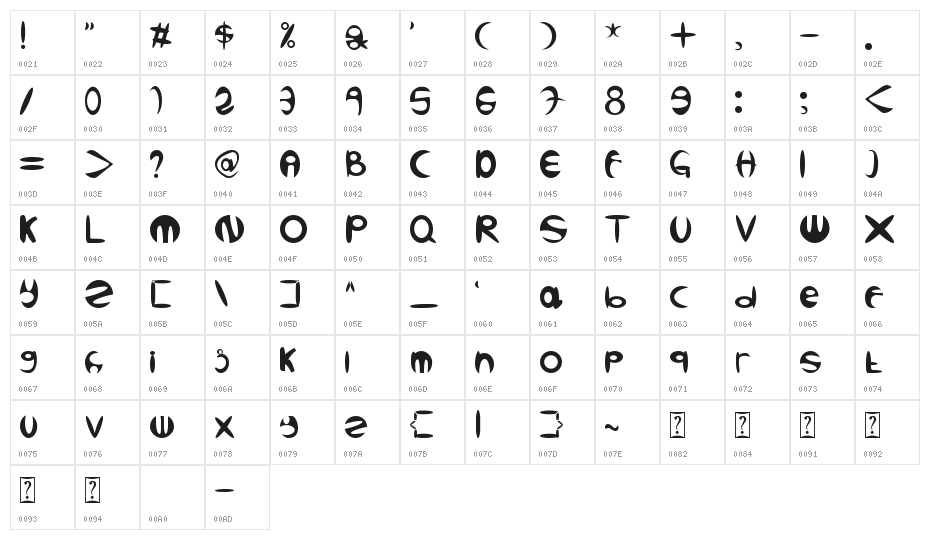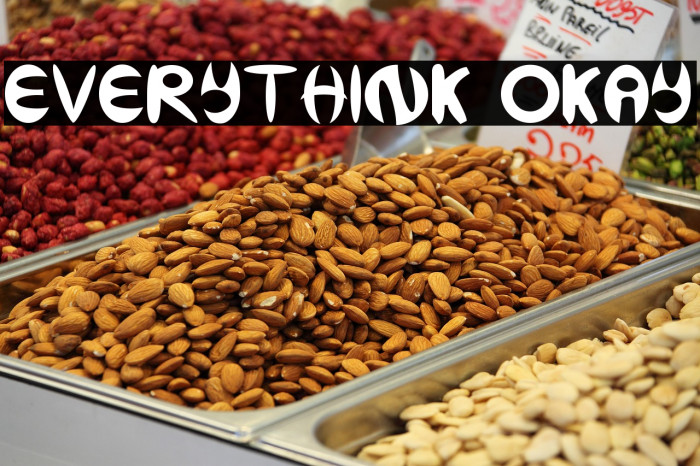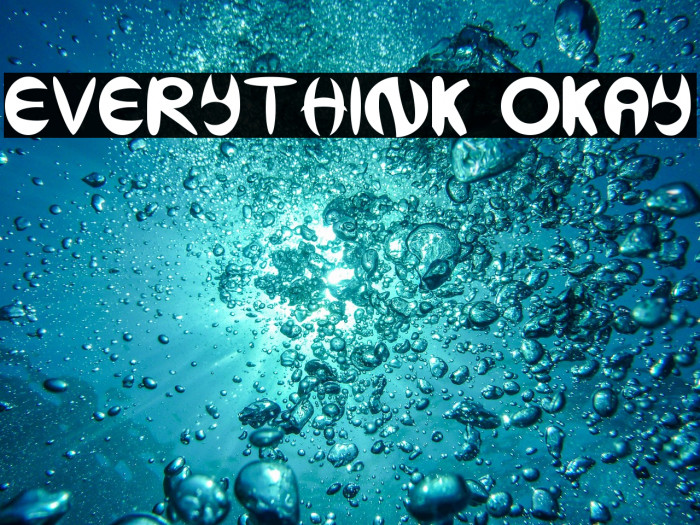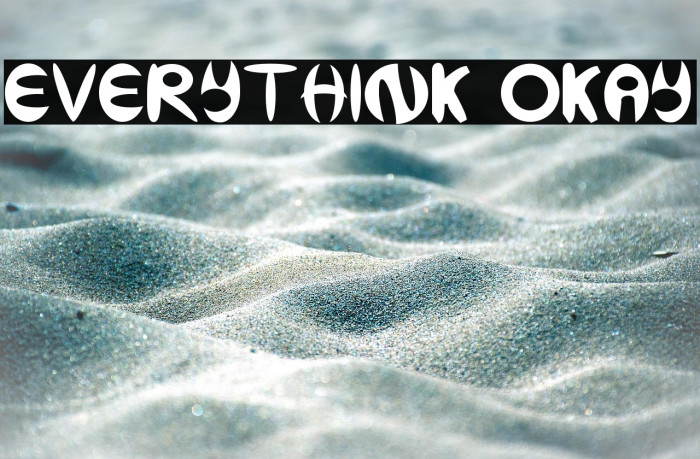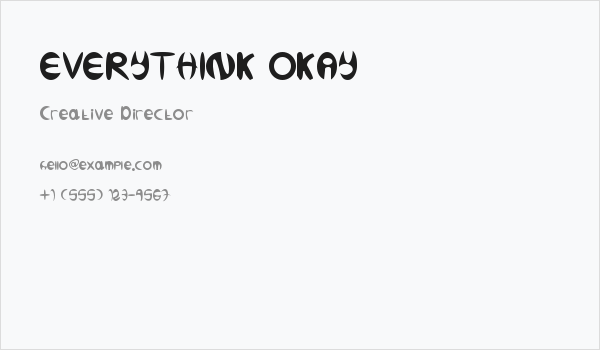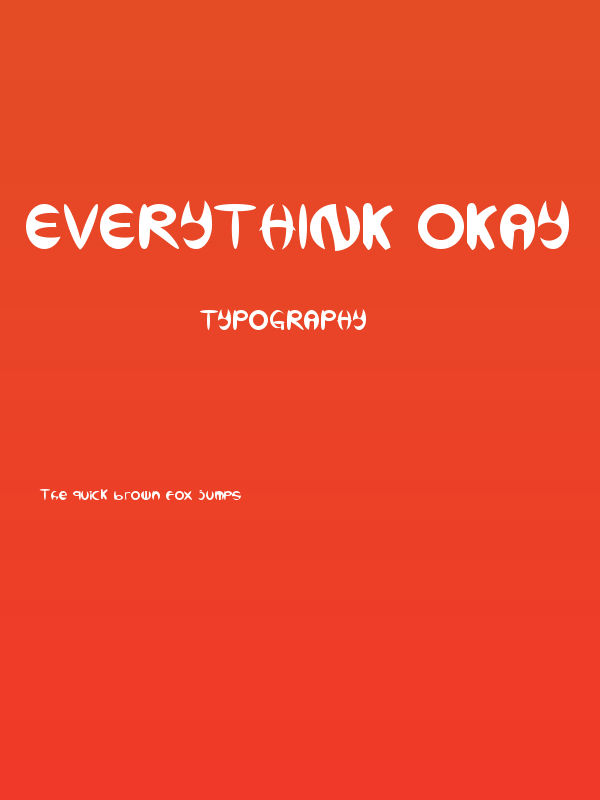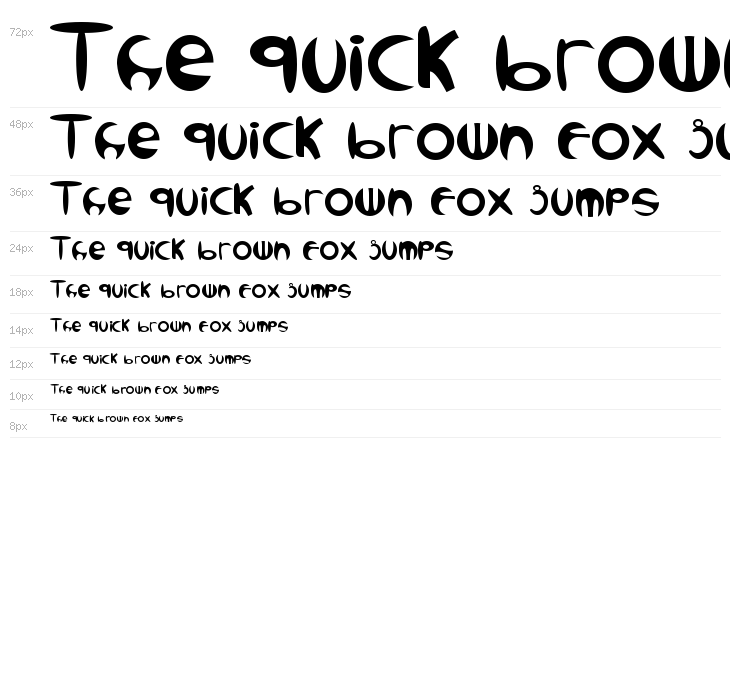
EVERYTHINK OKAY Font
EVERYTHINK OKAY Description
This font features a bold and playful design with a unique, rounded style. The characters are characterized by their thick, curved strokes and a whimsical appearance, making them stand out with a distinct personality. The uppercase and lowercase letters maintain a consistent style, with a focus on circular and semi-circular shapes. Numbers and special characters follow the same playful theme, ensuring a cohesive look across all elements. The font's boldness and creative design make it suitable for eye-catching projects.
| Use Case | Headlines, Posters, Branding |
| Proposed Projects | Ideal for children's books, playful branding, posters, and creative projects that require a fun and engaging typeface. |